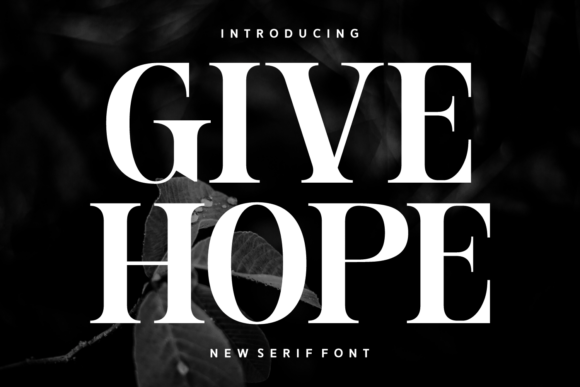
Give Hope Font: A New Serif Font that Embodies Inspiration and Elegance
The world of typography has just welcomed a new addition – the Give Hope font, a serif font that exudes drama, elegance, and inspiration. This beautiful font is designed to evoke feelings of hope and positivity, making it perfect for a wide range of creative projects. In this article, we will explore the features and benefits of the Give Hope font, as well as its potential uses in various design contexts.
An introductory image for “Give Hope,” a new serif font. The dramatic and elegant visual style complements the font’s classic letterforms and inspirational name.
The Design of Give Hope Font
The Give Hope font is a serif font, characterized by its classic letterforms and elegant lines. The font’s design is inspired by traditional typography, with a modern twist that makes it perfect for contemporary design projects. The serif font features beautiful details, such as subtle curves and refined edges, which give it a sophisticated and refined look.
One of the standout features of the Give Hope font is its dramatic and elegant visual style. The font’s bold and expressive letterforms are perfect for headlines, titles, and other display text, while its more subtle and refined variations are suitable for body text and other smaller design elements.
The Inspiration Behind Give Hope Font
The Give Hope font is designed to inspire and uplift, making it perfect for projects that require a sense of hope and positivity. The font’s inspirational name and elegant design make it an ideal choice for designers looking to create beautiful and meaningful work.
The font’s creator was inspired by the power of typography to evoke emotions and convey messages. They aimed to create a font that would inspire designers to create work that is not only visually stunning but also meaningful and impactful.
Features and Benefits of Give Hope Font
The Give Hope font offers a range of features and benefits that make it an attractive choice for designers. Some of the key features include:
- Classic letterforms: The font’s classic letterforms are inspired by traditional typography, making it perfect for projects that require a sense of heritage and tradition.
- Elegant lines: The font’s elegant lines and refined edges give it a sophisticated and refined look that is perfect for high-end design projects.
- Drama and contrast: The font’s bold and expressive letterforms provide a sense of drama and contrast, making it perfect for headlines, titles, and other display text.
- Multiple variations: The font comes in multiple variations, making it suitable for a wide range of design projects, from body text to display text.
Some of the benefits of using the Give Hope font include:
- Increased legibility: The font’s clear and refined letterforms make it easy to read, even in smaller sizes.
- Emotional resonance: The font’s inspirational name and elegant design make it perfect for projects that require a sense of hope and positivity.
- Versatility: The font’s multiple variations make it suitable for a wide range of design projects, from print to digital.
Potential Uses of Give Hope Font
The Give Hope font is a versatile font that can be used in a wide range of design projects. Some potential uses include:
- Headlines and titles: The font’s bold and expressive letterforms make it perfect for headlines, titles, and other display text.
- Body text: The font’s more subtle and refined variations are suitable for body text and other smaller design elements.
- Branding and logos: The font’s elegant lines and refined edges make it perfect for branding and logo design.
- Print design: The font is suitable for a wide range of print design projects, from business cards to billboards.
- Digital design: The font is also suitable for digital design projects, such as websites, social media graphics, and more.
The Give Hope font is a beautiful and inspiring serif font that is perfect for designers looking to create meaningful and impactful work. Its classic letterforms, elegant lines, and dramatic visual style make it suitable for a wide range of design projects, from headlines and titles to body text and branding. With its inspirational name and versatile design, the Give Hope font is sure to become a popular choice among designers.